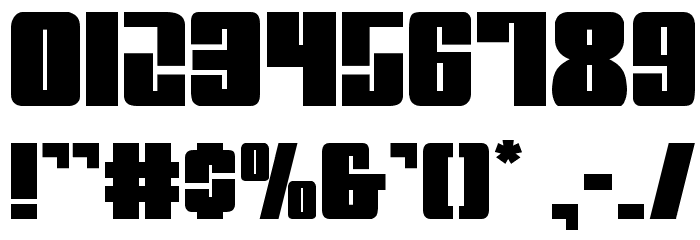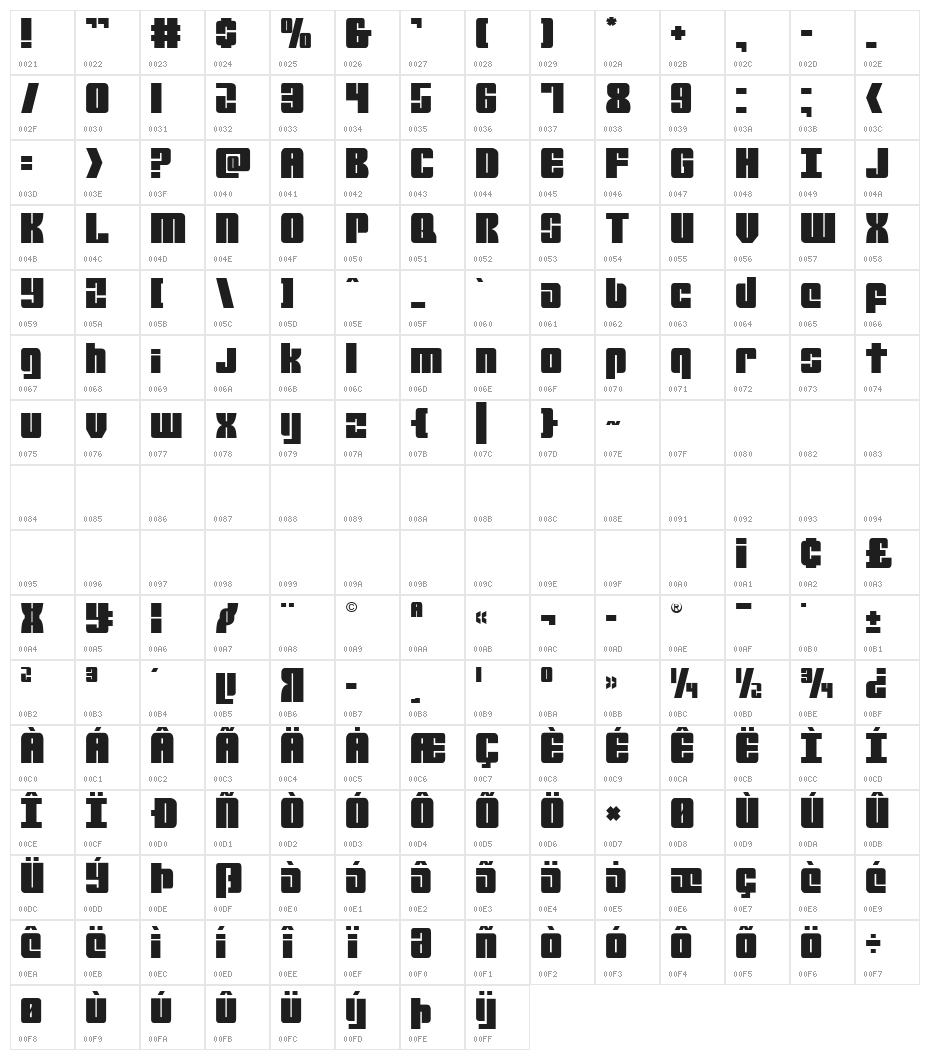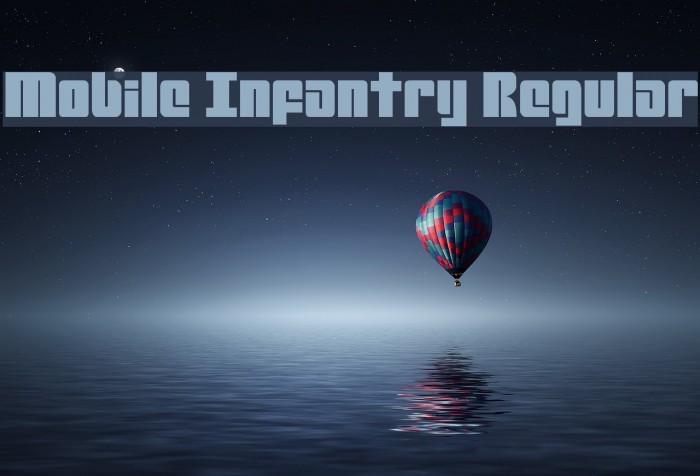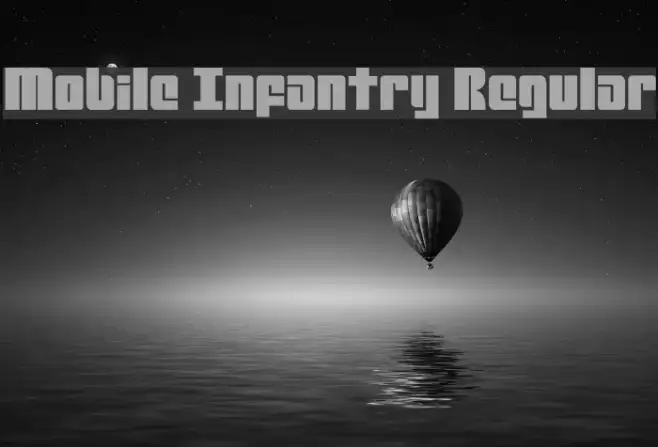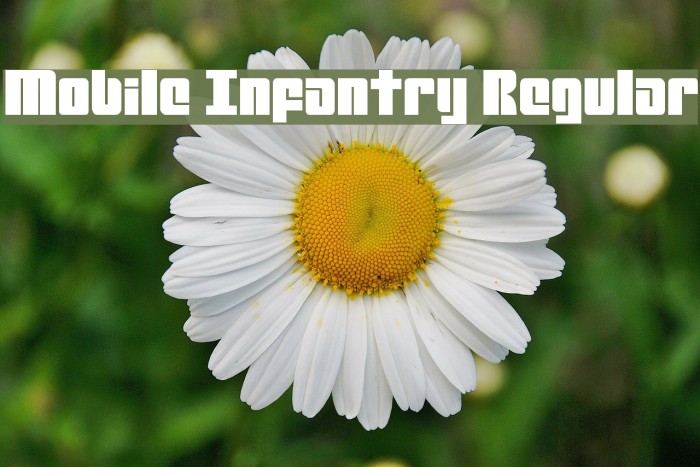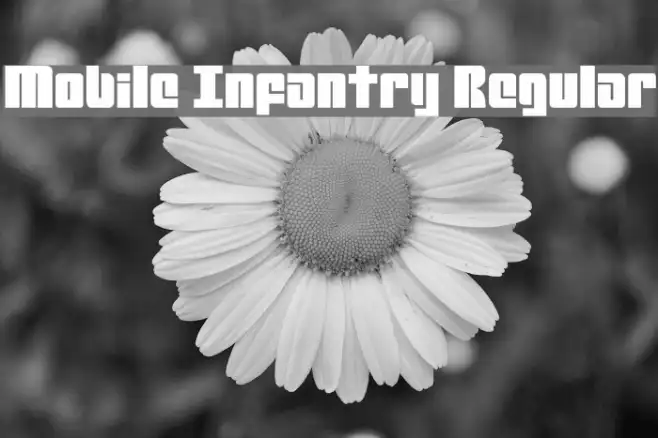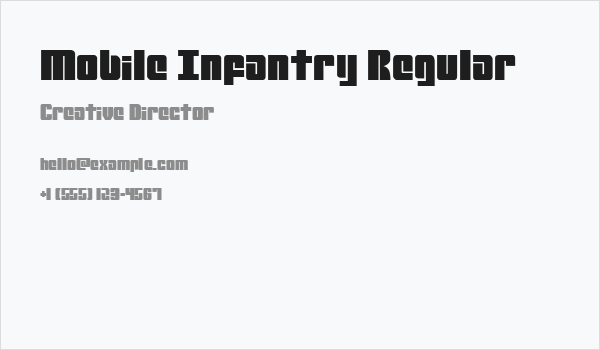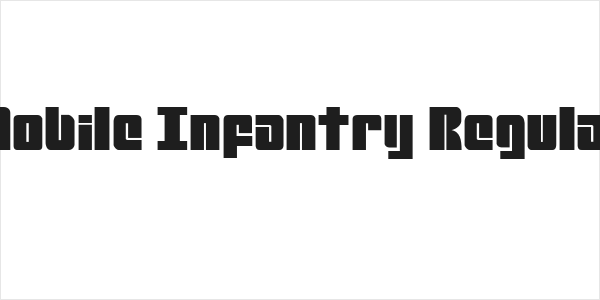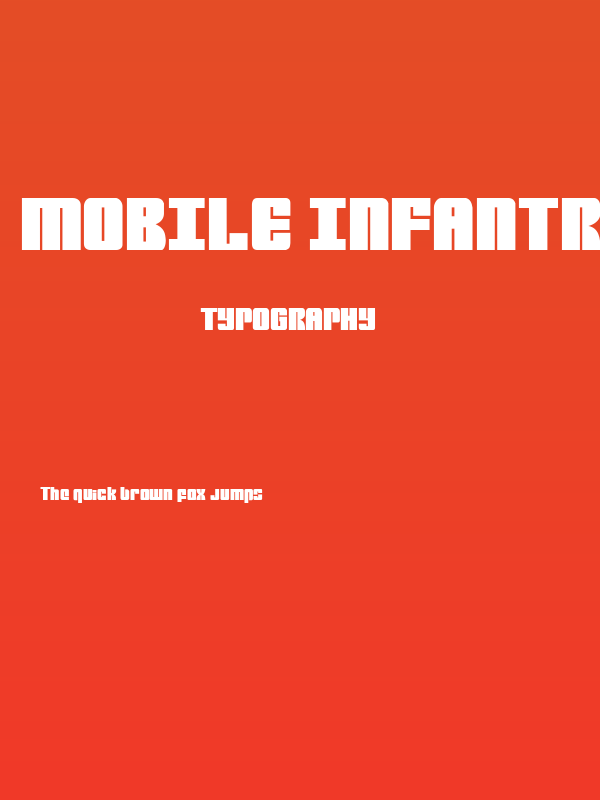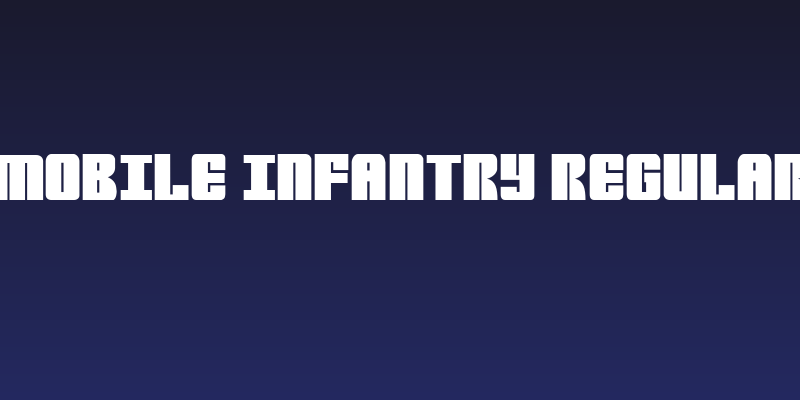
Mobile Infantry Regular Font
Mobile Infantry Regular Description
This font features a bold, geometric design with a strong, impactful presence. The characters are constructed with thick, block-like shapes that convey a sense of strength and stability. The uppercase and lowercase letters share a consistent width, creating a uniform appearance. The numbers and special characters maintain this robust style, ensuring a cohesive look across all text. The font's design is reminiscent of military or industrial themes, making it suitable for projects that require a bold and commanding visual impact.
| Proposed Projects | Ideal for use in posters, logos, video game graphics, and branding materials that require a bold, impactful style. |